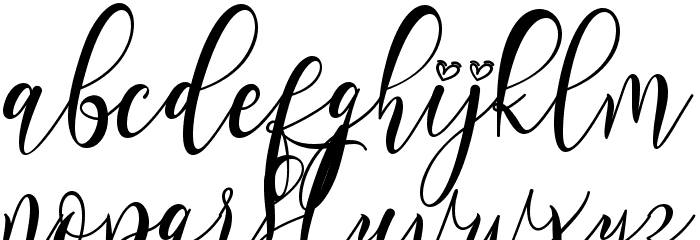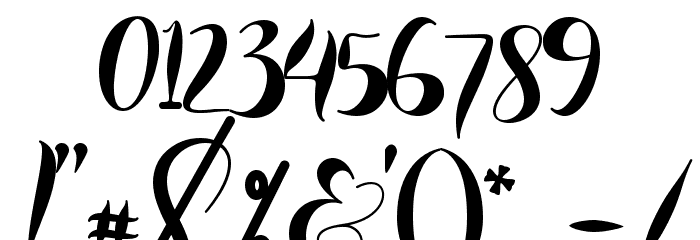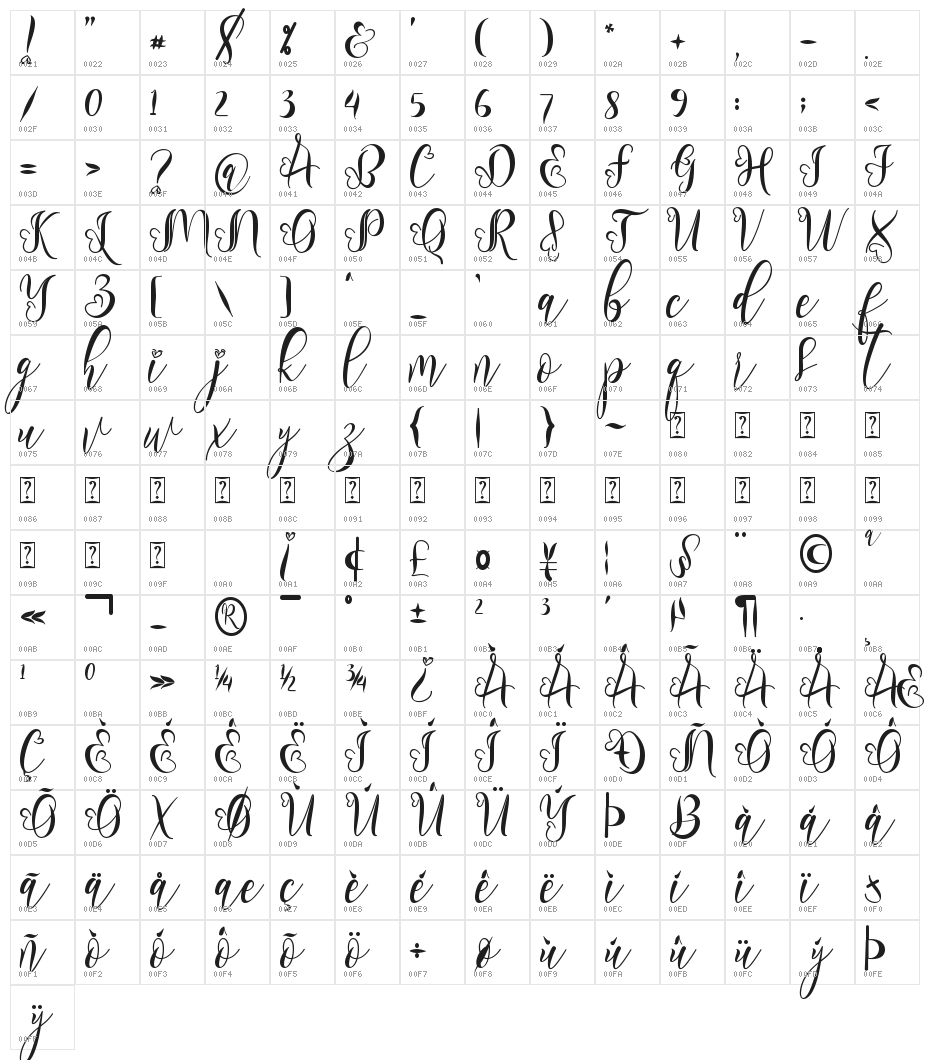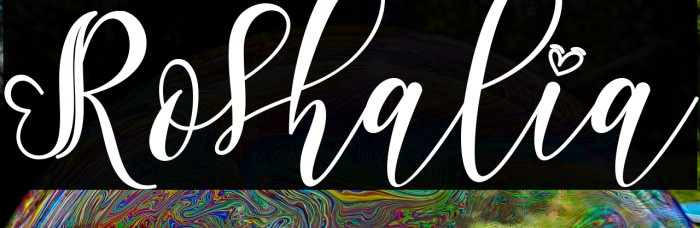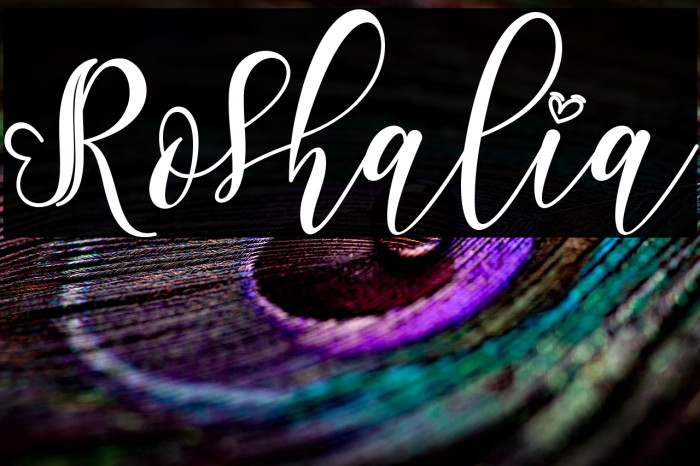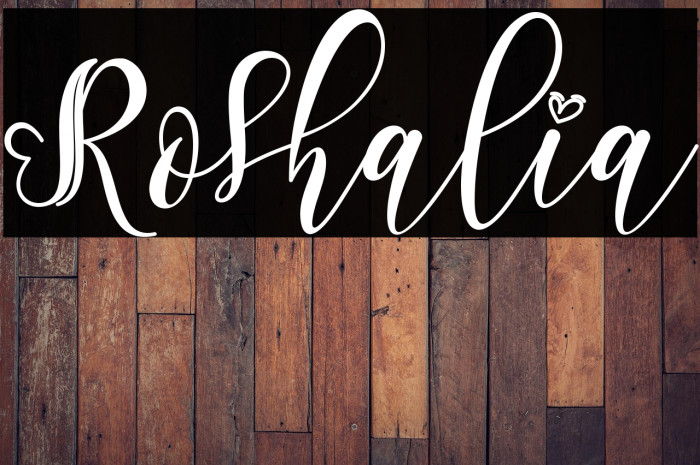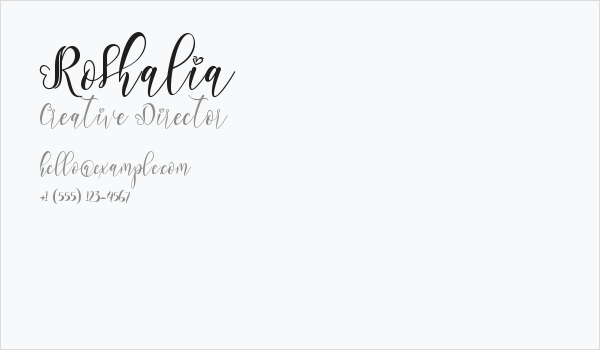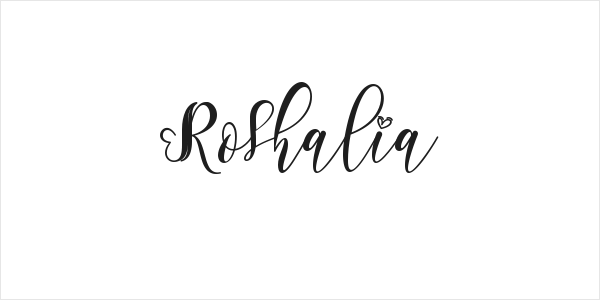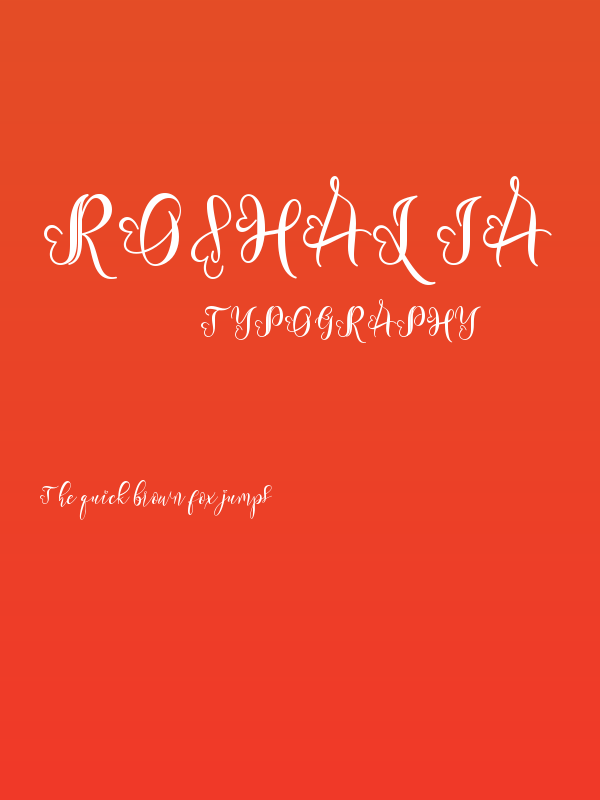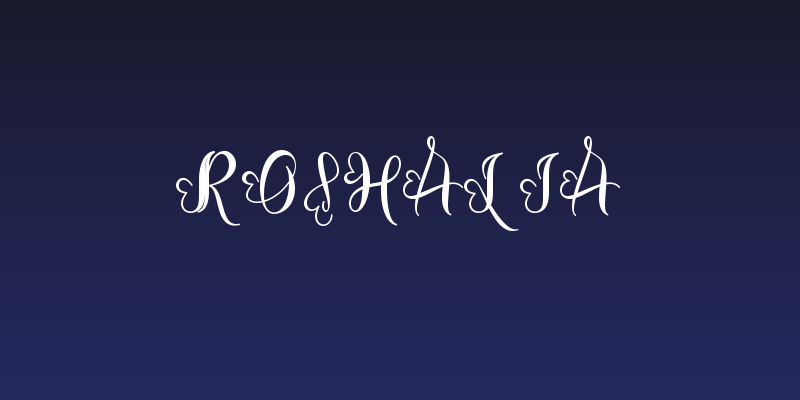
Roshalia Font
This elegant script font features a flowing, cursive style with intricate swirls and loops that add a touch of sophistication and romance. The uppercase letters are adorned with decorative flourishes, while the lowercase letters maintain a smooth, connected appearance. The numerals are stylishly curved, complementing the overall aesthetic. Special characters are designed with the same attention to detail, making this font ideal for projects that require a personal, artistic touch. The font's graceful lines and balanced proportions make it suitable for a variety of creative applications.
An elegant script font with flowing, decorative flourishes and a romantic style.
- Proposed Projects: Wedding invitations, greeting cards, branding, and logo design.
- Use Case: Logos, Invitations, Decorative text